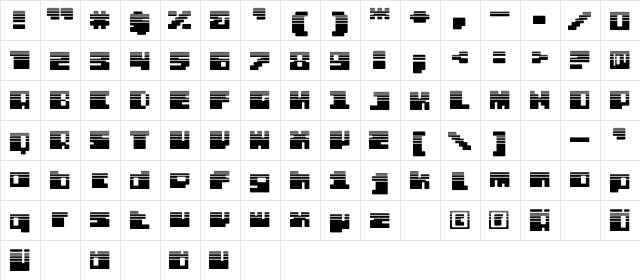
DS PTRLDizel Regular
Design Context for DS PTRLDizel Typeface
DS PTRLDizel is a composed and adaptable typeface that performs quietly and consistently across a wide range of design contexts.